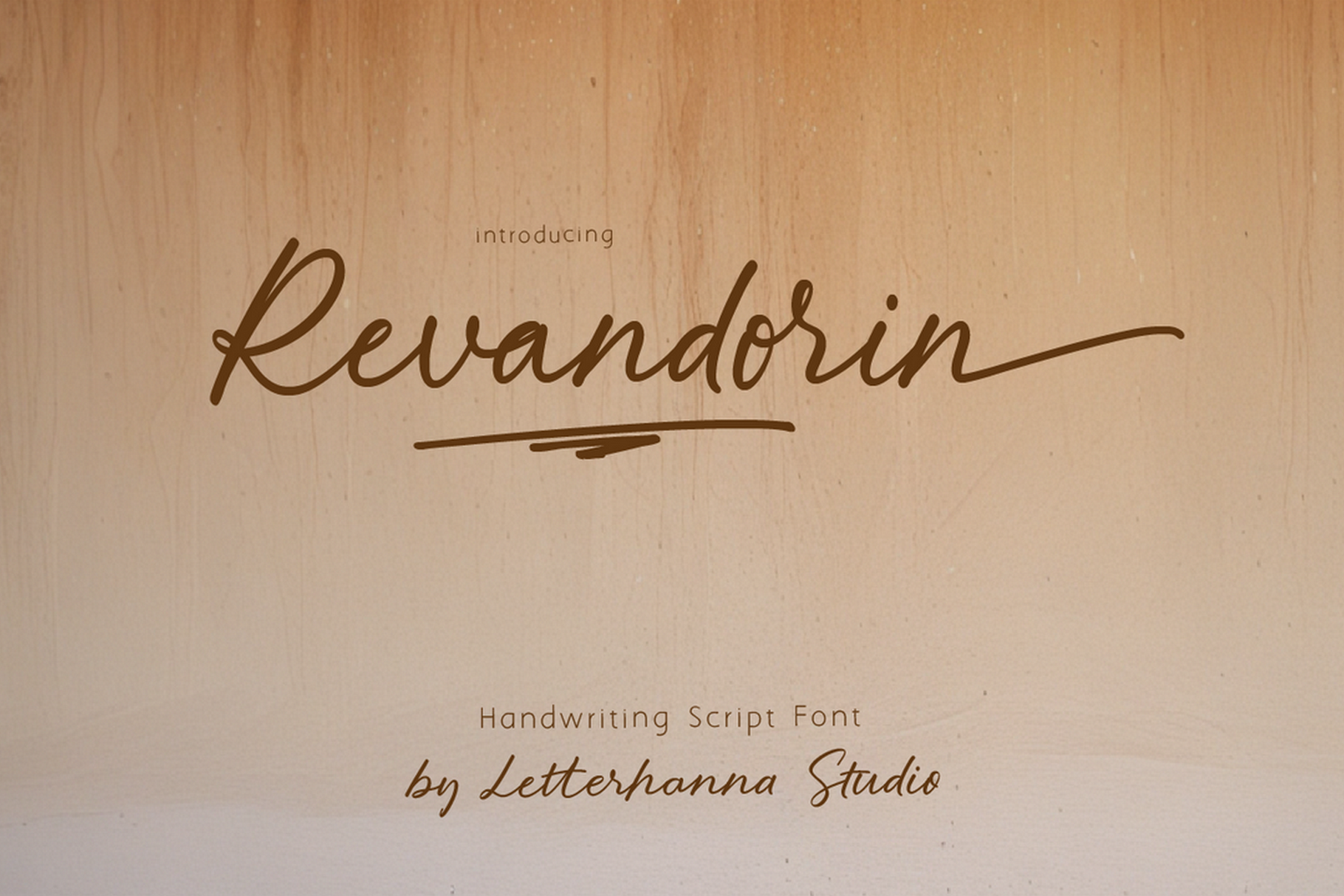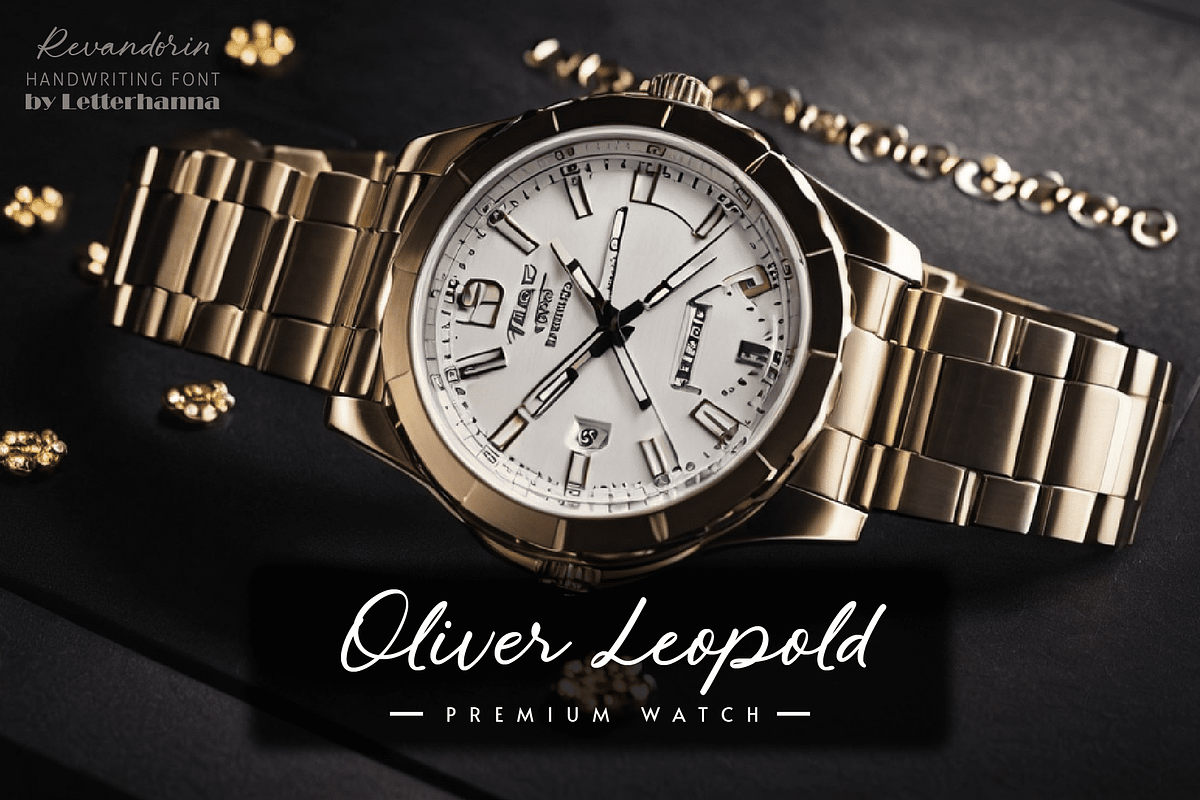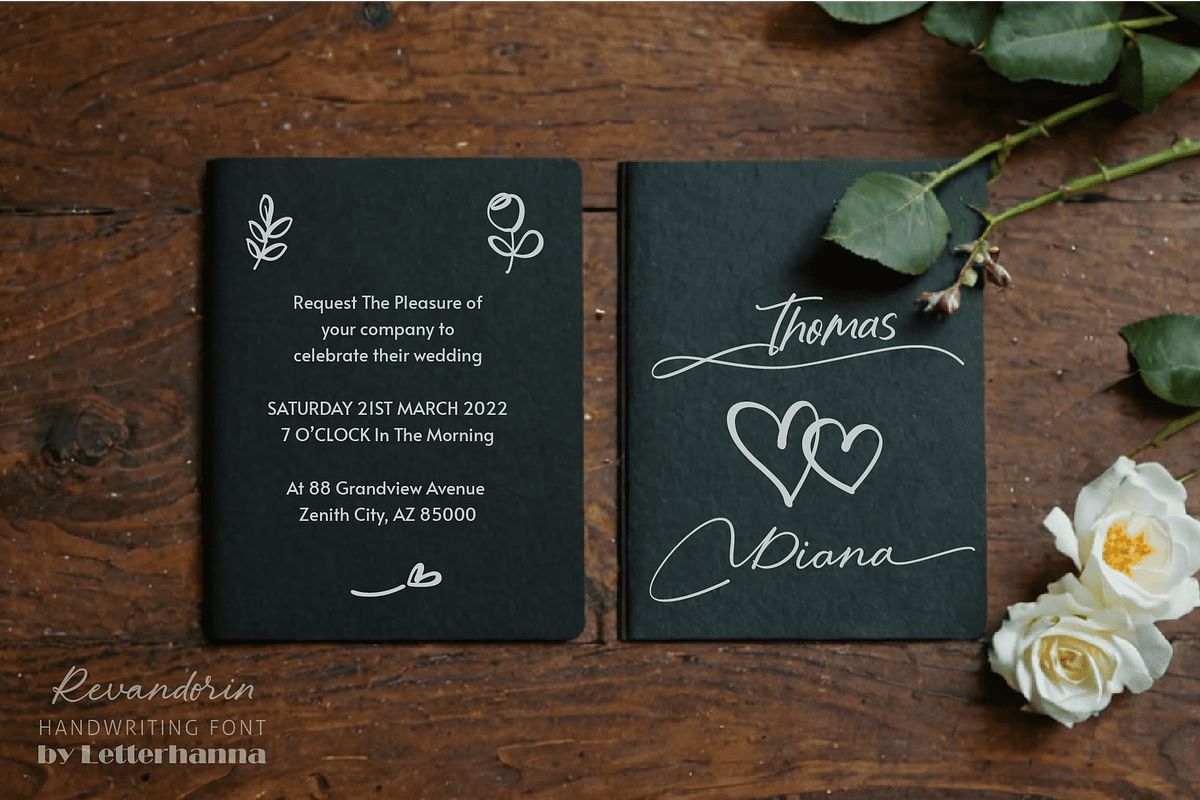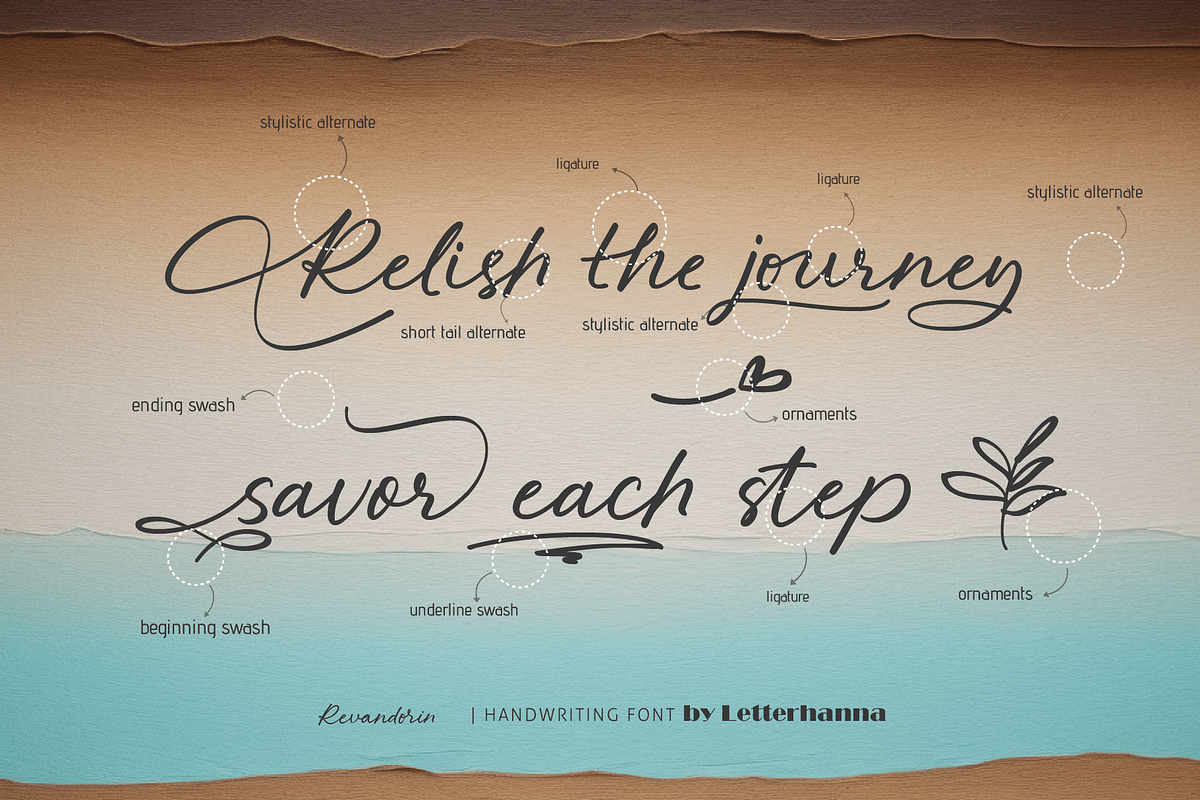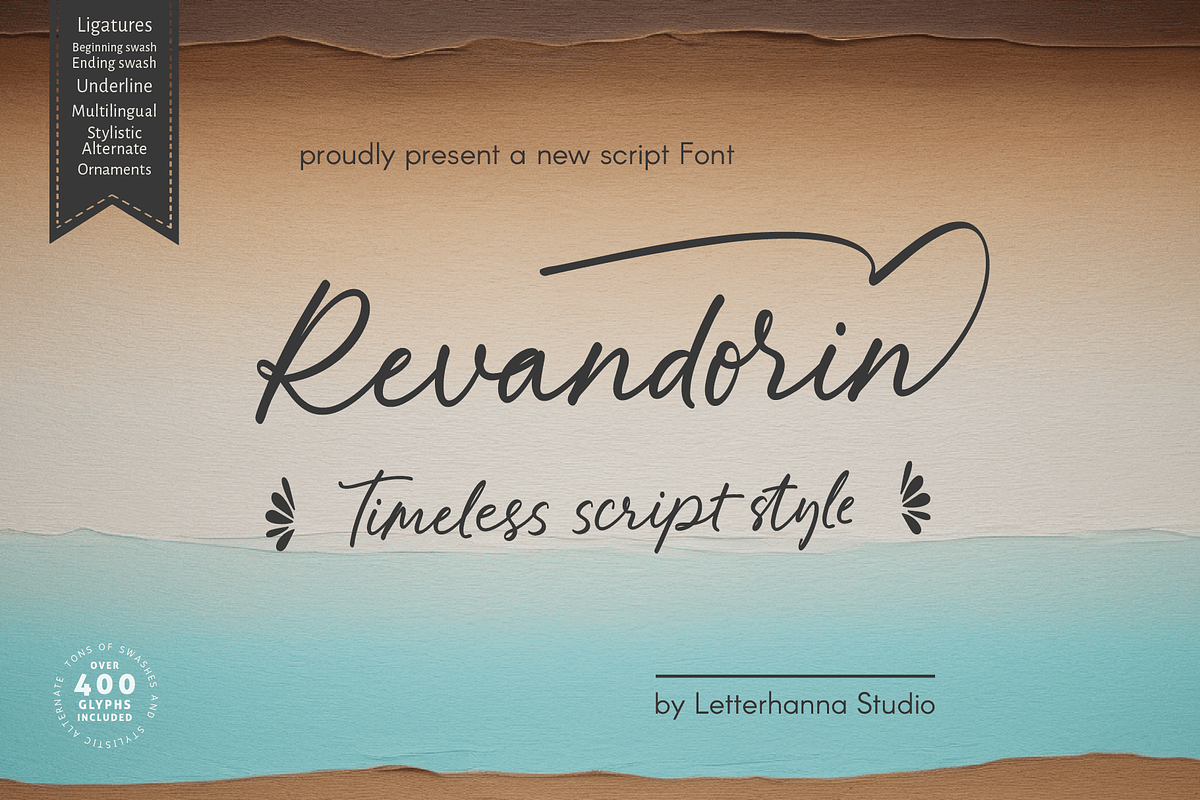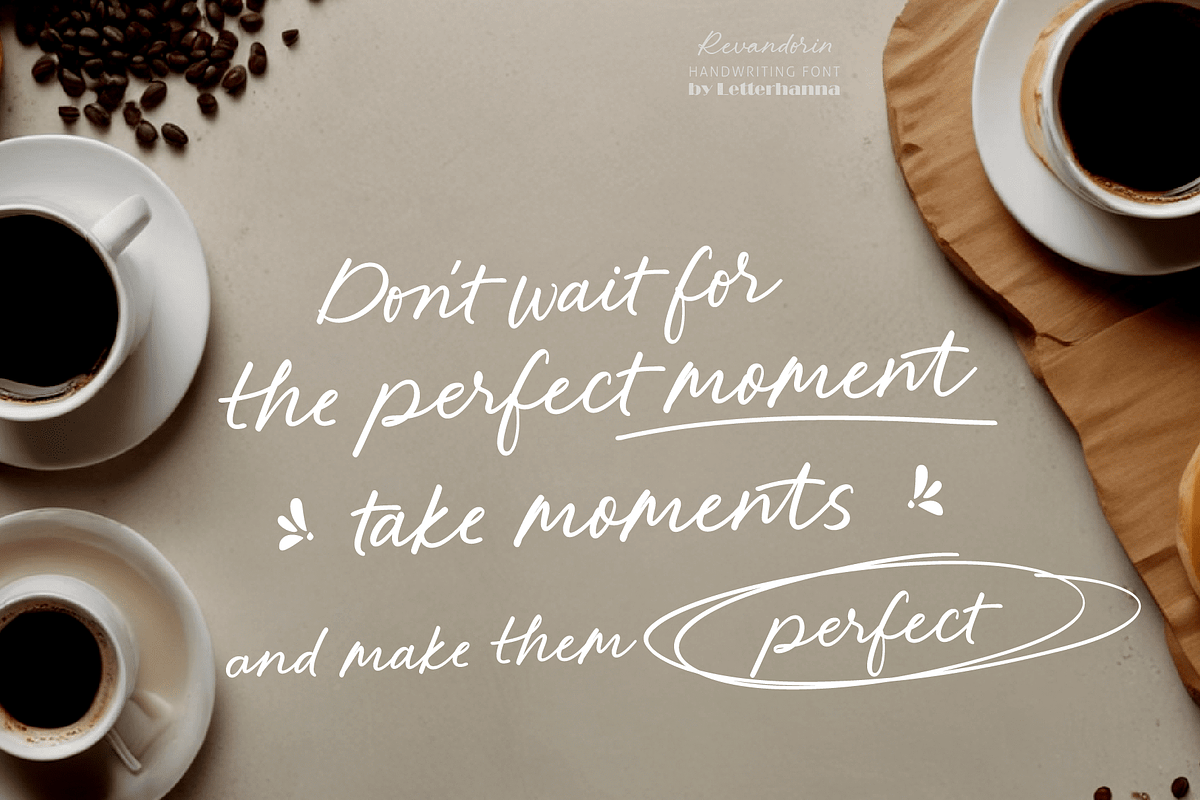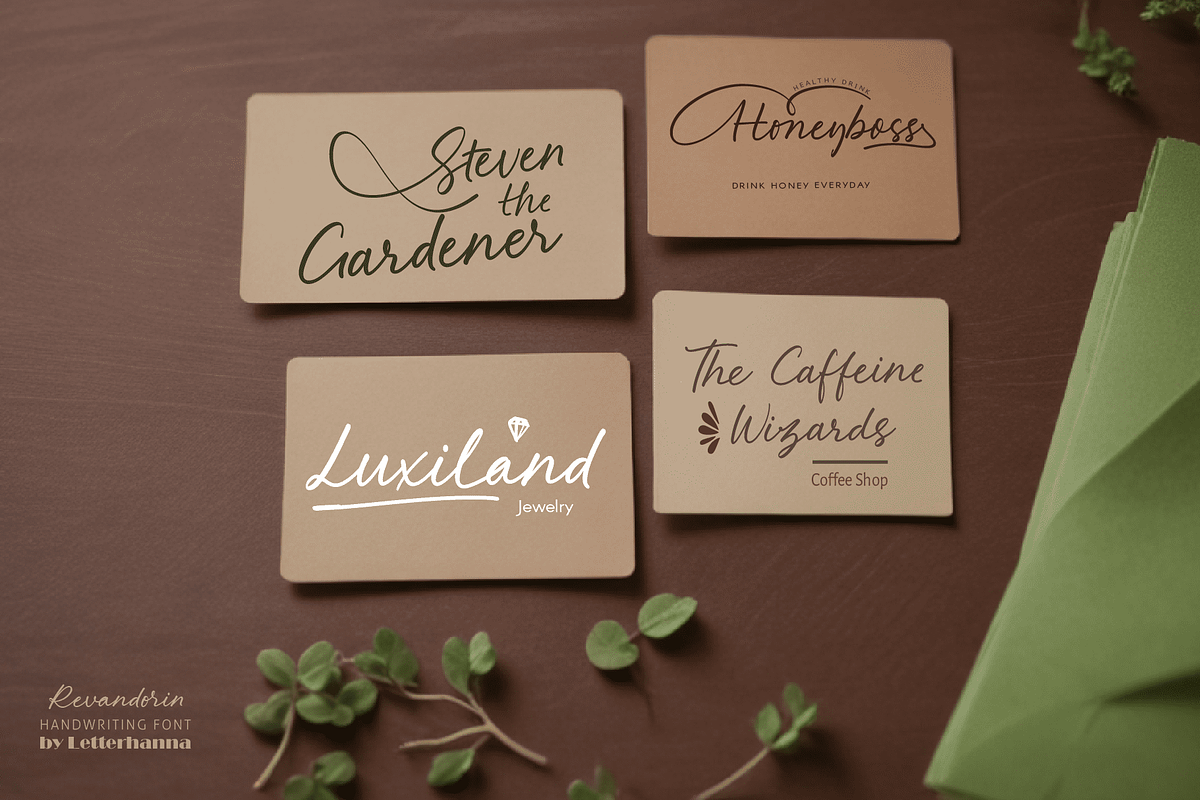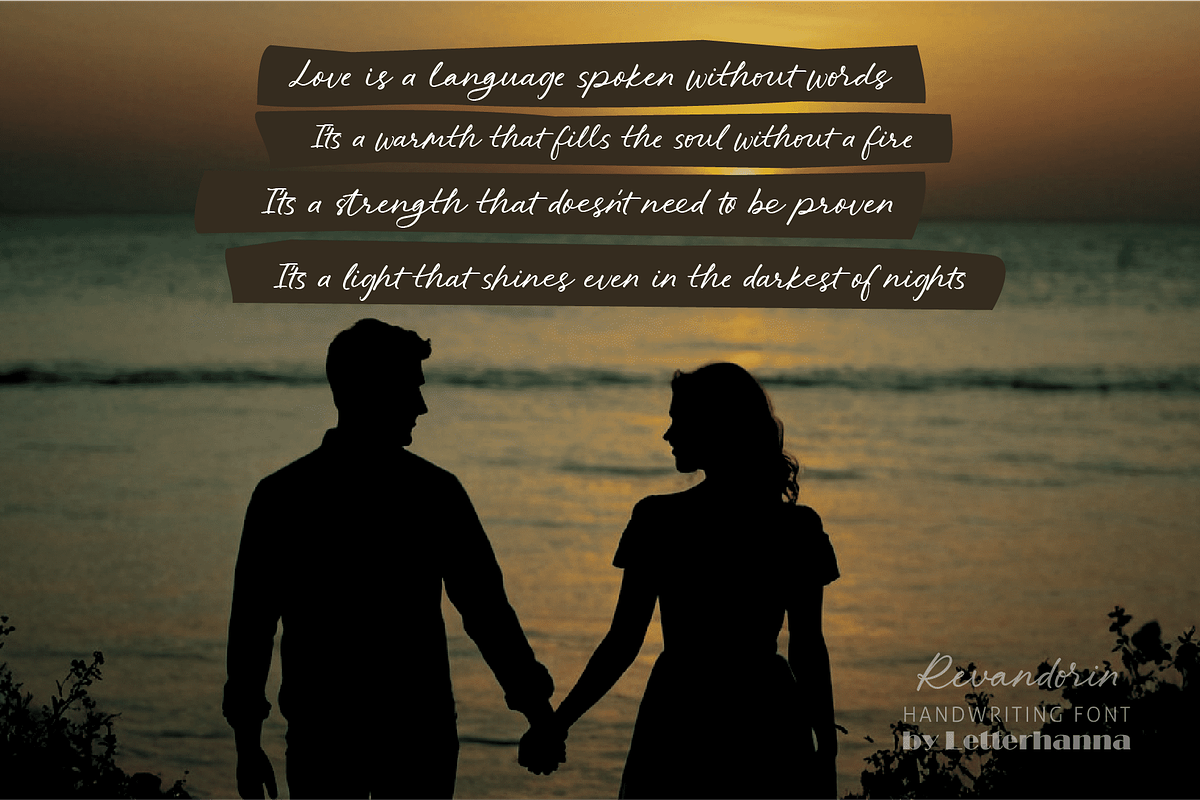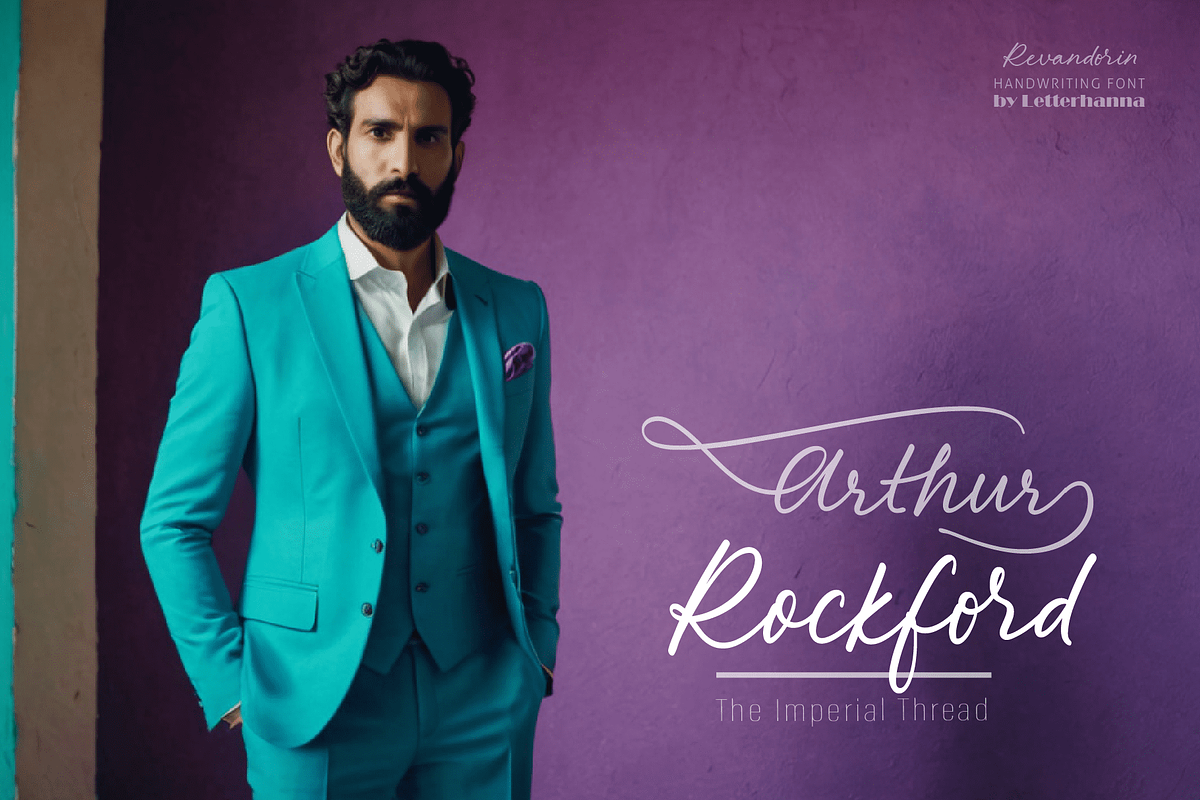
Revandorin Font
Introducing Revandorin, a bold script font with elegant upstroke calligraphy. This typeface blends power and grace, making every stroke flow seamlessly. Packed with a variety of alternate styles and ligatures, Revandorin offers endless creative possibilities for branding, invitations, and signature-style designs. Elevate your typography with its bold presence and refined details.
Easy Access to Glyphs and Swashes
Gain easy access to all alternate glyphs, swashes, ornaments, and underlines by simply using ligatures. You can try them out yourself in the font preview tool on our website, letterhanna.com.
Accessing Swashes and Ornaments
Underline Swashes: Use a hyphen symbol "-" followed by a number between 1 and 30. For example, type "-3", "-22", or "-17" to get various underline swashes.
Head/Beginning Swashes: Use a dollar sign "$" followed by a number between 1 and 9. For example, type "$2" or "$8" to get different head/beginning swashes.
Tail/Ending Swashes: Use a percent sign "%" followed by a number between 1 and 30. For example, type "%3" or "%15" to get various tail/ending swashes.
Ornaments: Use an "at" symbol "@" followed by a number between 1 and 26. For example, type "@4" or "@13" to get different ornaments.
PUA Encoding for Ease of Use, which means you can access all the glyphs and swashes with ease!
Uppercase and lowercase letters Numbers and punctuation marks Multilingual support Ligatures Beginning and ending swashes Underline swashes Ornaments Easy access to swashes using ligatures